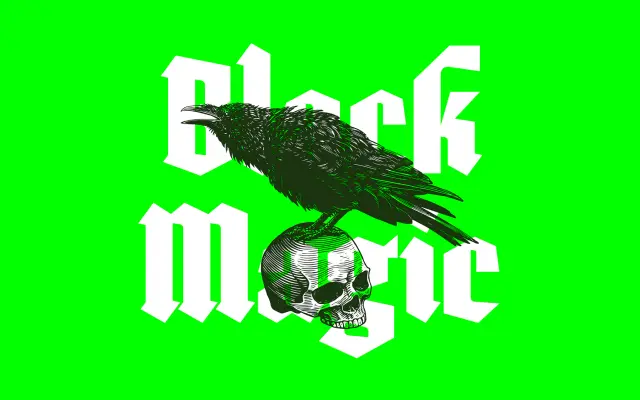
F37 Caligari
F37 Caligari specimen from F37 Foundry
A contemporary blackletter display family inspired by The Cabinet of Dr. Caligari, six weights deep from Regular to Black.
A textura blackletter reworked for present day display use. Six weights run from Regular to Black, with sharp pointed forms and twisted, oblique lines that draw on German Expressionist cinema rather than ecclesiastical type. Sits in posters, record sleeves, fashion editorial and anywhere a gothic display voice needs to feel cinematic rather than antique.
F37 describe F37 Caligari as Das Cabinet des Dr. Caligari but if it was made in 2024. It is a contemporary blackletter and textura display family, drawing on German Expressionist cinema for its sharp angles, twisted forms and high contrast.